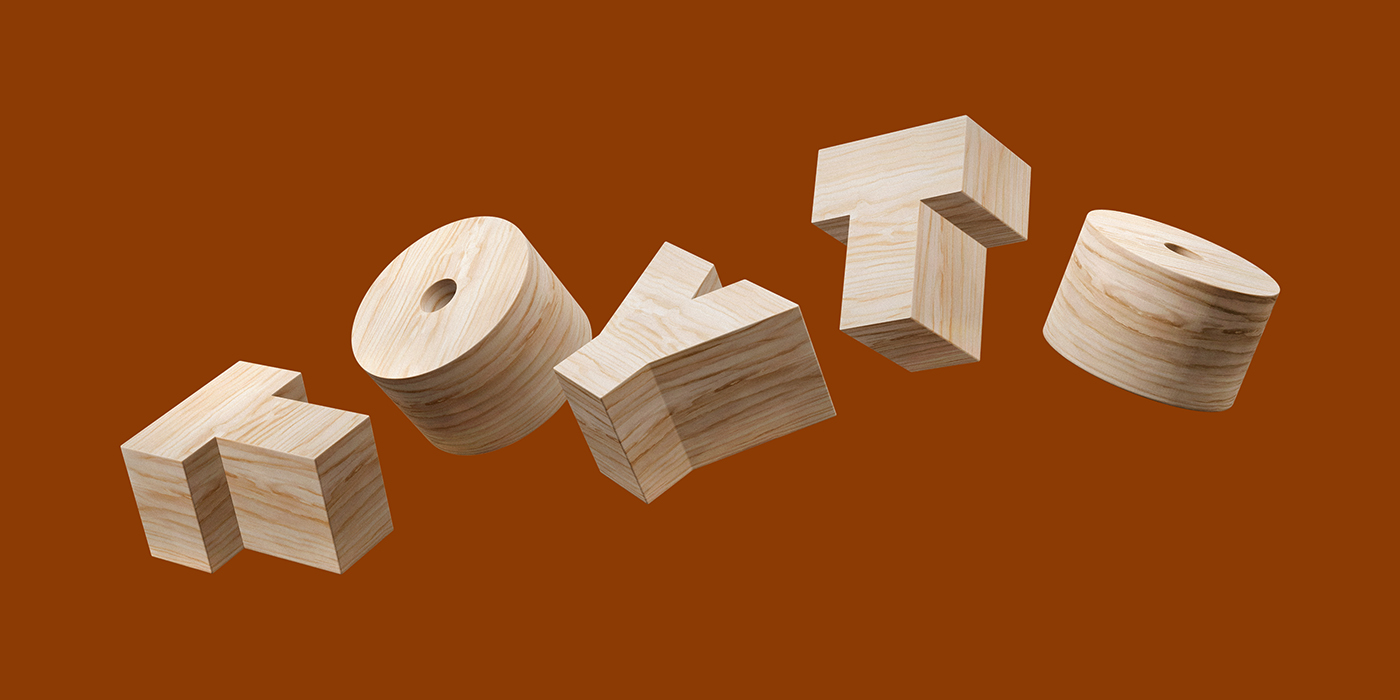
Toyto is a Berlin-based wooden toy brand with a mission that sounds almost like a manifesto: no play, no gain. Founded with the conviction that play is not a childish indulgence but an expressive form of existence, Toyto set out to create objects that honour human artistry and follow a clear vision: to make the un-created. Their toys are handcrafted by carpenters in Eastern Europe, far from the noise of automated production lines, and each one is made from wood and, as they put it, “from heart-full skills.” The challenge they brought to the table was significant: how do you build a visual identity for a brand that is simultaneously artisanal and contemporary, playful and serious, rooted in craft yet forward-looking enough to speak to a design-conscious, global audience?
When a Brand Learns to Play
The visual identity Odd Works developed for Toyto is built around the logic of the object itself. The toys (wooden blocks, cubes, stacking towers, and vehicles) are defined by simple geometric shapes, modular thinking, and the warmth of natural materials. These became the raw ingredients of the brand language.
At the centre of the system is the TOYTO wordmark, where the letterforms are themselves toy-like, each character built from shapes that echo the rounded forms, stackable volumes, and architectural logic of wooden objects. The colour palette reflects the material warmth of wood and the brightness of play: a combination of earthy tones and vivid accents that keeps the brand approachable without tipping into the overly childish. Every touchpoint carries this same cohesive visual grammar, making Toyto instantly recognisable as a brand that takes both craft and communication seriously.
The Letters That Stack Up
The custom TOYTO wordmark is supported by Labil Grotesk by KOMETA Typefaces. Designed by Christian Jánský and released in 2018, Labil Grotesk is described by its creators as a “joyful sans-serif with a human touch.” This typeface takes the formal discipline of classic Swiss grotesques and introduces a controlled sense of imbalance, as if each letter is gently succumbing to the laws of gravity. Letters lean, tilt, and seem to carry their own weight, which, for a toy brand built around the joy of stacking and balancing physical objects, is more than an aesthetic choice. It is a conceptual one. In the context of Toyto, Labil Grotesk extends the brand’s central idea into every line of body copy, every label and every headline.
About Odd Works Studio
Odd Works is a design studio that operates at the intersection of design, art services, and creative direction, with a self-professed commitment to keeping things fun. The studio approaches each project with a rigorous conceptual foundation, but never at the expense of warmth or wit. Their body of work spans brand identities, visual systems, and art direction for clients across different industries, and their method is consistent: find the logic that lives inside the subject, and let that logic generate the visual language. If you’d like to explore more of their work and philosophy, their portfolio is well worth a visit at oddworks.studio.